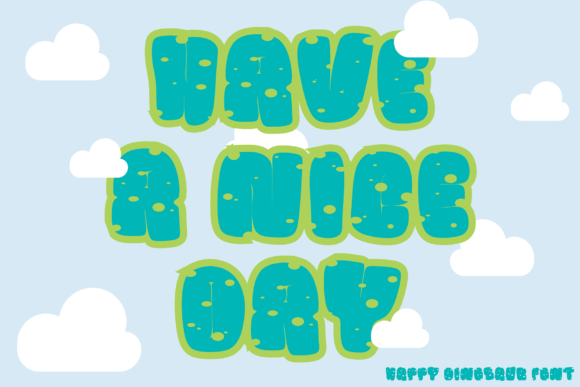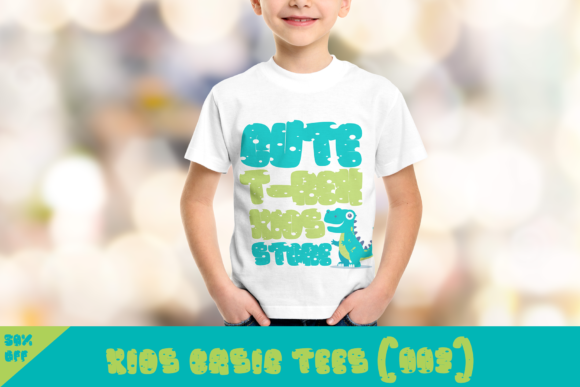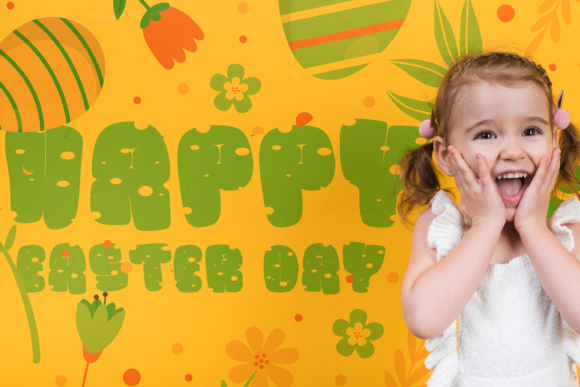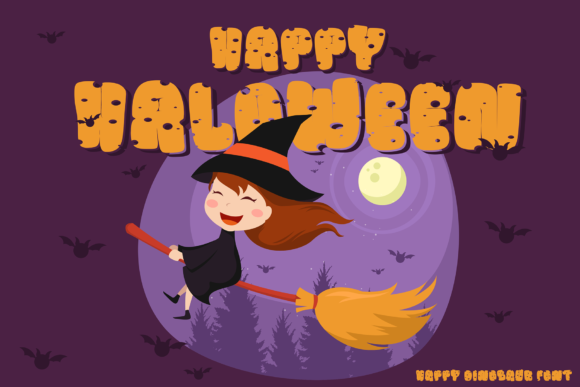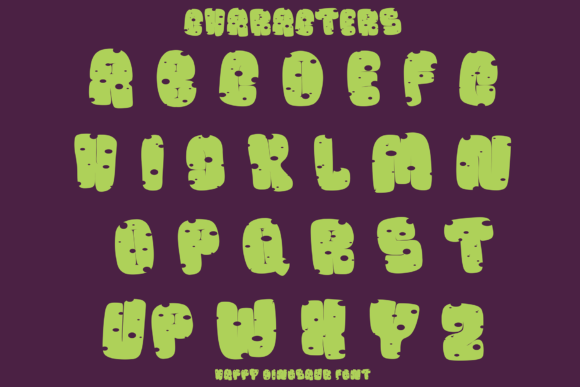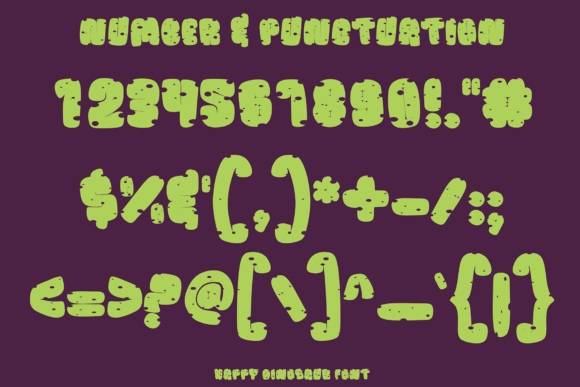
Introducing Happy Dinosaur Font: The Ultimate Display Font for Creative Projects
Are you tired of using the same old fonts for your creative projects? Look no further! Happy Dinosaur Font is here to take your designs to the next level. This sweet and chunky lettered display font is perfect for adding a touch of friendliness and playfulness to your work. In this article, we’ll dive into the features and benefits of Happy Dinosaur Font, and explore how it can make your creative ideas stand out.
The Friendly Feel of Happy Dinosaur Font
Happy Dinosaur Font is designed to evoke a sense of friendliness and approachability. Its chunky letters and rounded edges give it a soft, cuddly feel that’s hard to resist. This font is perfect for designers and crafters who want to add a personal touch to their work. Whether you’re creating a logo, poster, or social media graphic, Happy Dinosaur Font is sure to bring a smile to your audience’s face.
One of the best things about Happy Dinosaur Font is its versatility. Its friendly feel makes it suitable for a wide range of contexts, from children’s party invitations to branding and advertising materials. This font can be used for:
- Social media graphics and ads
- Party invitations and decorations
- Packaging and labeling
Whether you’re working on a personal project or a client’s, Happy Dinosaur Font is sure to adapt and shine.
Make Your Creative Ideas Stand Out
With Happy Dinosaur Font, you can add a unique touch to your creative ideas and make them stand out from the crowd. Its chunky letters and playful feel make it perfect for:
- Headlines and titles
- Quotes and testimonials
- Product names and descriptions
- Signage and display materials
This font is sure to grab attention and leave a lasting impression on your audience.
Design and Crafting Applications
Happy Dinosaur Font is not just limited to digital designs. It’s also perfect for crafters and makers who want to add a personal touch to their work. Use it for:
- Handmade cards and invitations
- DIY signage and decor
- Custom apparel and accessories
- Paper crafting and scrapbooking
This font is a versatile tool that can be used in a variety of creative applications.
Tips for Using Happy Dinosaur Font
Here are some tips for getting the most out of Happy Dinosaur Font:
- Use it as a headline font to grab attention
- Pair it with a simpler font for body text
- Experiment with different colors and textures
- Use it consistently across your brand or project
By following these tips, you can make the most of Happy Dinosaur Font and create stunning designs that showcase your creativity.
| Font Name | Happy Dinosaur Font |
| Author | sipanji figuree |
In conclusion, Happy Dinosaur Font is a sweet and chunky lettered display font that’s perfect for adding a touch of friendliness and playfulness to your creative projects. Its versatility and unique feel make it suitable for a wide range of contexts, from logos and branding materials to party invitations and DIY signage. With Happy Dinosaur Font, you can make your creative ideas stand out and leave a lasting impression on your audience. So why wait? Add Happy Dinosaur Font to your creative toolkit today and start creating stunning designs that showcase your personality and style!